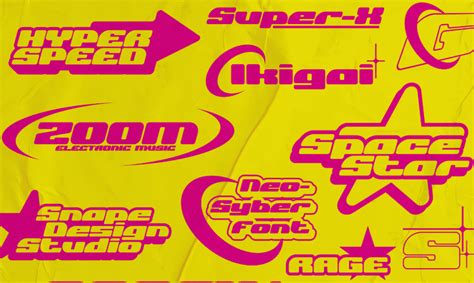
Y2K Google Fonts. Web making the web more beautiful, fast, and open through great typography Add a creative and nostalgic touch to your designs with.
Web making the web more beautiful, fast, and open through great typography Add a creative and nostalgic touch to your designs with. Web discover a unique collection of fabulous and retro y2k fonts, all for free. Armata is a low contrast sans serif text face, with a mixture of familiar and unfamiliar shapes.
Armata is a low contrast sans serif text face, with a mixture of familiar and unfamiliar shapes. Armata is a low contrast sans serif text face, with a mixture of familiar and unfamiliar shapes. Web discover a unique collection of fabulous and retro y2k fonts, all for free. Add a creative and nostalgic touch to your designs with. Web making the web more beautiful, fast, and open through great typography